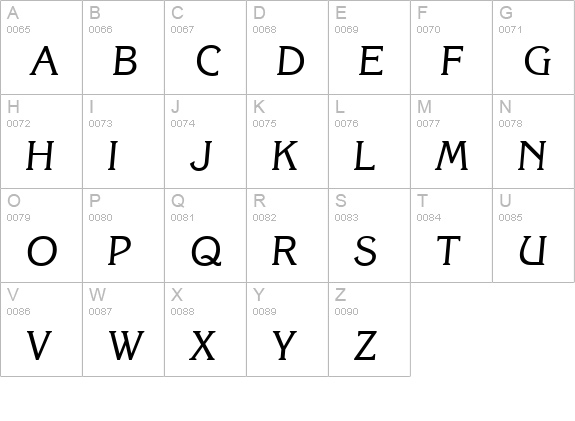
KorinthSerial-Italic is a distinctive, italic variant in the KorinthSerial typeface family \xE2\x80\x94 well suited to design and typography projects.
KorinthSerial-Italic font is a stylish and elegant typeface perfect for adding a touch of sophistication to your designs. Its sleek and modern design makes it ideal for a wide range of projects, from branding to editorial design. The italic style adds a touch of flair and elegance, making it stand out from the crowd. Best of all, KorinthSerial-Italic font is completely free to download at FontsMarket.com. Whether you're a designer looking for a new go-to font or just someone who appreciates beautiful typography, this font is sure to impress. Don't miss out on the opportunity to enhance your projects with this stunning typeface – download KorinthSerial-Italic today and elevate your designs to the next level.